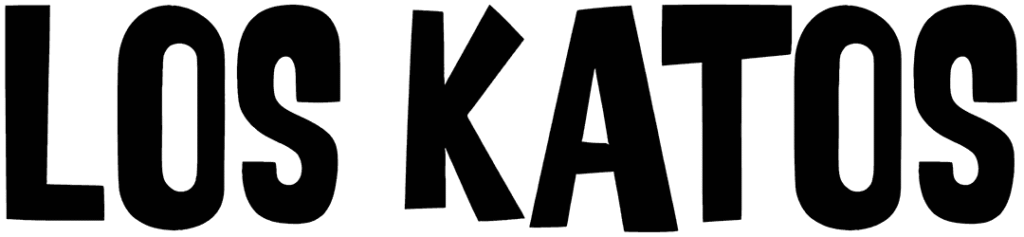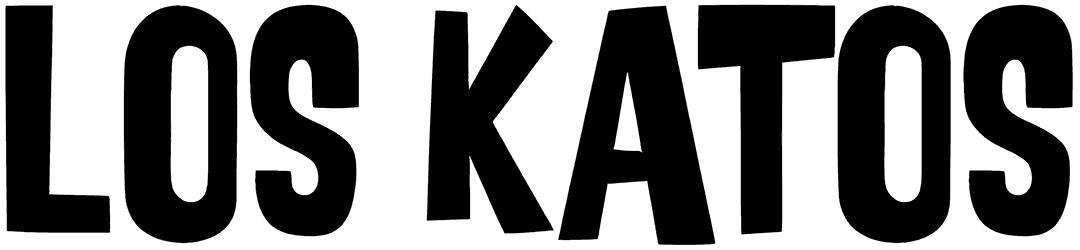
Los Katos Font
When you want to convey a modern and playful vibe, using a comic font like Los Katos would be a nice pickup. It’s an all-caps font and doesn’t cover lowercase letters, numbers, and punctuation marks. You can benefit from Los Katos to bold your intended words, such as logos, titles, or many others the same.